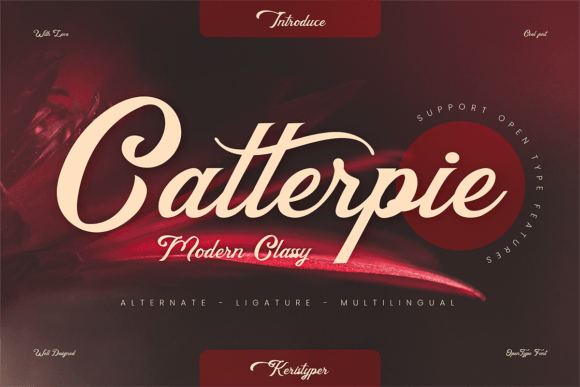
Introducing Catterpie Font: The Epitome of Elegance for Fashion Brands
Step into the world of Catterpie Font, a captivating script font family that will transform your fashion brand's visual identity into a masterpiece. Designed by the renowned Keristyper, Catterpie is a symphony of style and sophistication, meticulously crafted to elevate your designs beyond the ordinary.
With its graceful curves and effortless flow, Catterpie Font breathes life into your creations, adding a touch of allure to every letterform. Whether you're crafting wedding invitations, thank-you cards, or eye-catching logos, Catterpie's versatile personality shines through, leaving an unforgettable impression on your audience.
Catterpie Font: The Perfect Canvas for Your Fashion Vision
Catterpie Font is more than just a font; it's an artistic tool that empowers you to unleash your creativity and bring your fashion brand's vision to life. Its timeless elegance adds a touch of luxury to every project, making it the ideal choice for brands seeking to exude sophistication and refinement.
Imagine your fashion designs adorned with Catterpie's enchanting characters, captivating customers with their timeless beauty. Whether you're creating marketing materials, social media posts, or online catalogs, Catterpie Font elevates your brand's image, making it stand out from the crowd.
Unleash the Power of Customization with Catterpie Font
Catterpie Font's versatility extends beyond its inherent beauty, offering endless customization possibilities to match your unique brand identity. With a wide range of stylistic alternates, ligatures, and swashes, you can tailor Catterpie to perfectly reflect your brand's personality and aesthetic.
Experiment with different letter combinations, explore creative ligatures, and unleash your imagination to create truly bespoke designs. Catterpie Font becomes an extension of your creativity, allowing you to craft designs that resonate with your target audience and leave a lasting impression.
Catterpie Font: The Key to Unlocking Your Brand's Potential
Catterpie Font is more than just a font; it's an investment in your fashion brand's future. Its timeless appeal and versatility make it a font that will stand the test of time, growing with your brand and adapting to evolving trends.
With Catterpie Font, you unlock a world of possibilities, transforming your designs into works of art that captivate and inspire. Embrace the beauty of Catterpie Font and watch your fashion brand blossom into a symbol of elegance and sophistication.